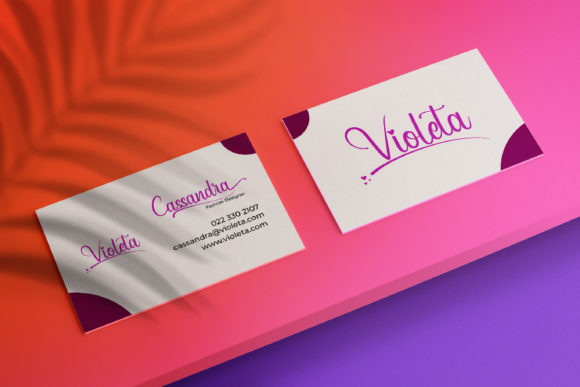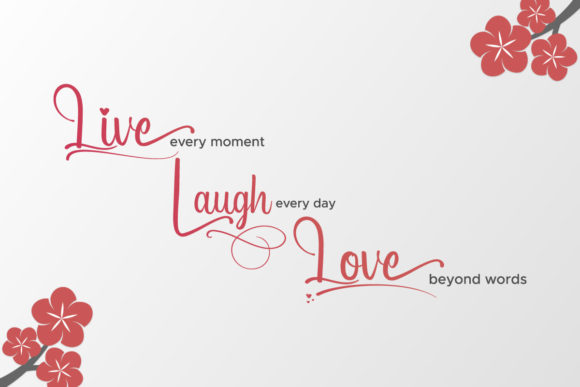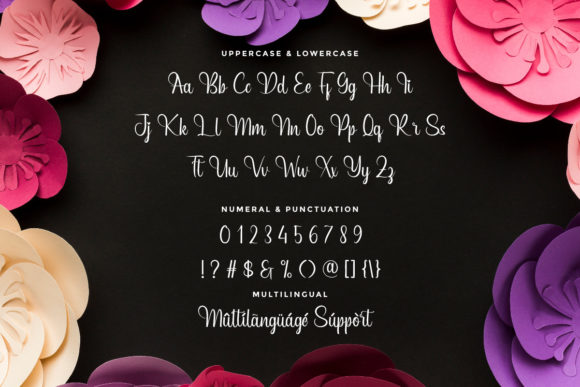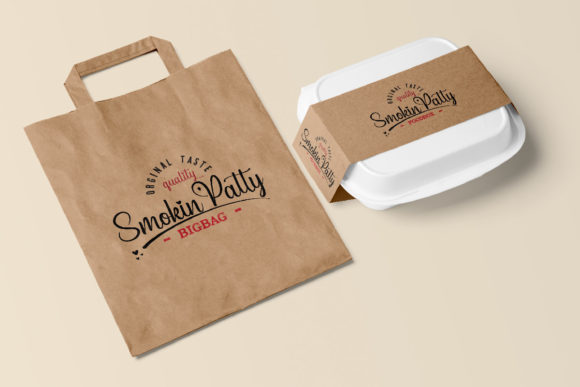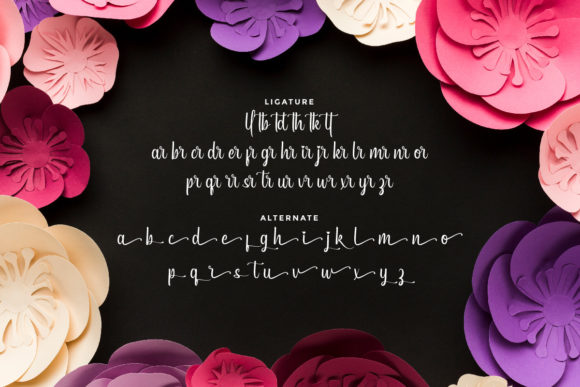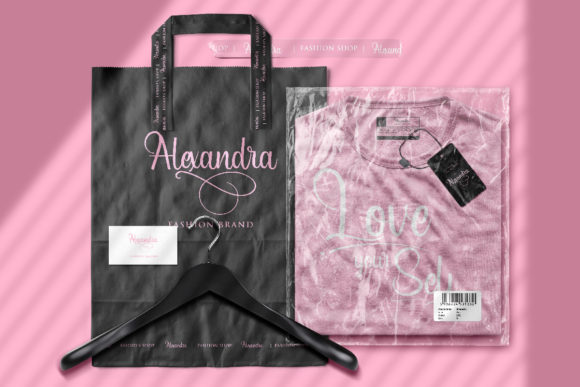
Introducing Anytime Soon Font: Elevate Your Design with Luxury and Elegance
Are you looking for a font that exudes luxury and sophistication? Look no further than the Anytime Soon Font. This stunning script font is designed to add a touch of elegance to any design project, making it perfect for crafters, designers, and anyone looking to create beautiful visual content.
What Makes Anytime Soon Font Special?
Anytime Soon Font is a thin lettered and graceful script font that is sure to impress. Its delicate lines and curves give it a luxurious feel that’s perfect for high-end designs. Whether you’re working on a branding project, packaging design, or social media graphics, this font is sure to elevate your work to the next level.
One of the standout features of Anytime Soon Font is its PUA (Private Use Area) encoding. This means that you can access all of the amazing glyphs and ligatures with ease, giving you even more creative freedom to experiment with different design elements. With PUA encoding, you can:
- Access a wide range of glyphs and ligatures
- Easily switch between different characters and symbols
- Create unique and complex designs with minimal effort
Anytime Soon Font is designed with designers and crafters in mind. Whether you’re working on a commercial project or a personal creative endeavor, this font is sure to inspire. Its versatility and elegance make it perfect for a wide range of design applications, including:
- Branding and logo design
- Packaging design and labeling
- Social media graphics and advertising
- Stationery and wedding invitations
Why Choose Anytime Soon Font?
With so many fonts available, why choose Anytime Soon Font? Here are just a few reasons why this font stands out:
- Unique and elegant design: Anytime Soon Font has a distinctive and sophisticated look that’s sure to set your designs apart.
- High-quality and versatile: This font is designed to work well in a wide range of design applications, from digital graphics to print materials.
- Easy to use: With PUA encoding, you can access all of the font’s features with ease, making it simple to get started and create stunning designs.